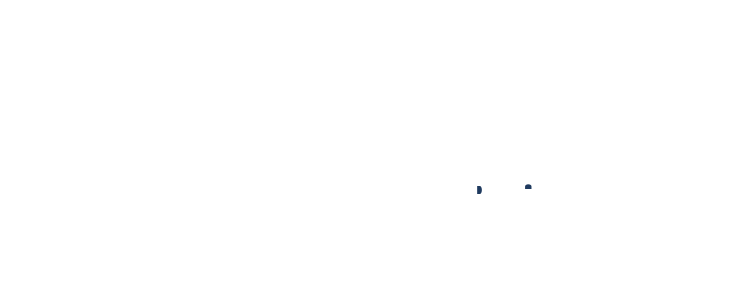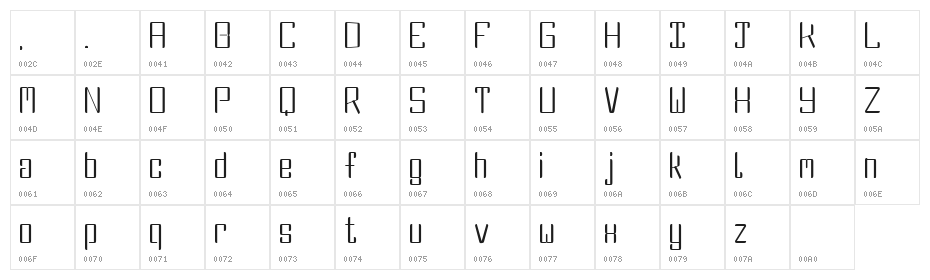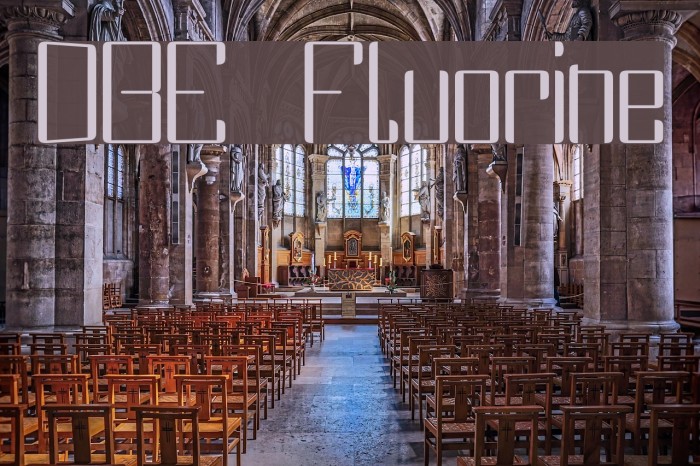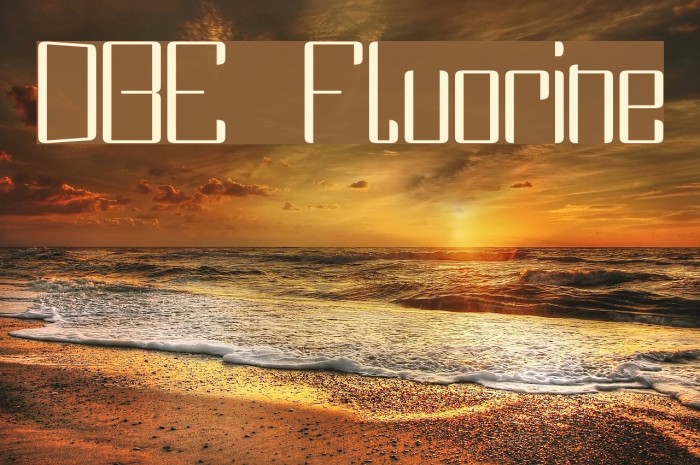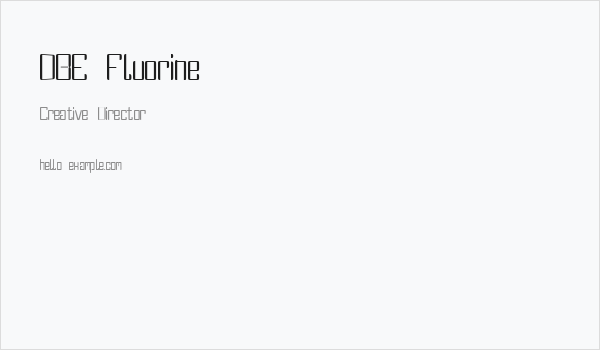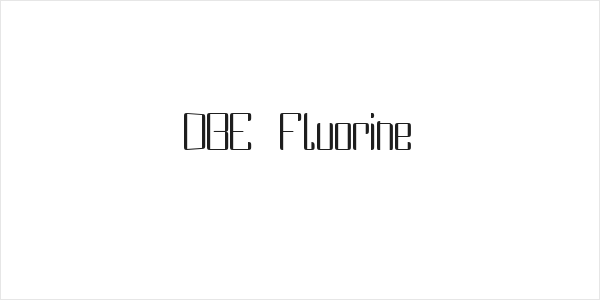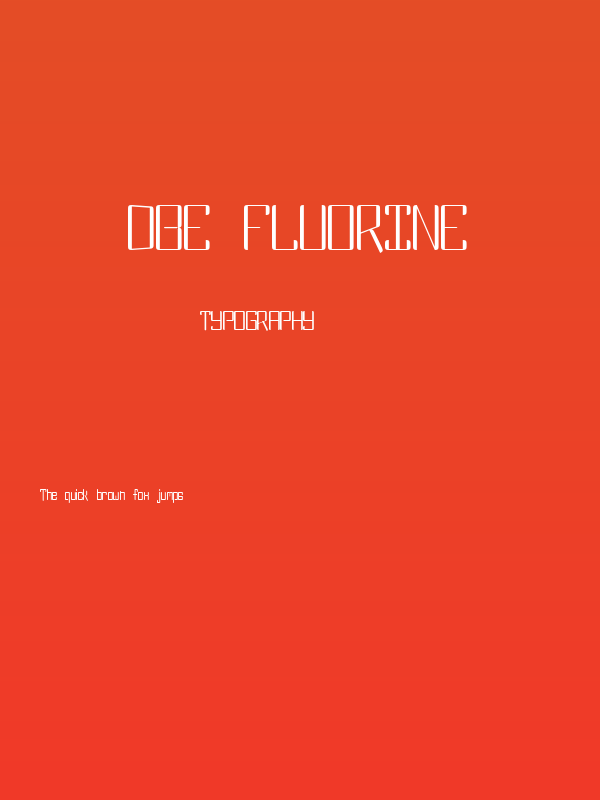
DBE Fluorine Font
This font features a modern and geometric design with a distinct, futuristic appeal. The characters are constructed with clean, straight lines and sharp angles, giving it a technical and precise look. The uppercase letters are tall and narrow, while the lowercase letters maintain a consistent height, creating a uniform appearance. The font's unique style is further emphasized by its minimalistic and open structure, making it suitable for contemporary designs. The special characters are seamlessly integrated, maintaining the overall aesthetic of the font.
Overall StyleFuturistic
Proposed ProjectsIdeal for technology branding, sci-fi themed projects, modern posters, and digital interfaces.